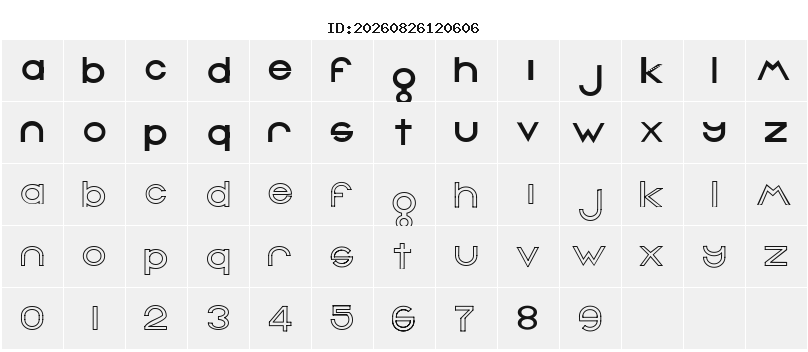
• Font Name: Warren
• Full Font Name: Warren 1
About Warren.ttf
Warren.ttf is a modern, elegant sans-serif font designed for ultimate readability and visual harmony. Perfect for branding, headlines, web design, and print materials.